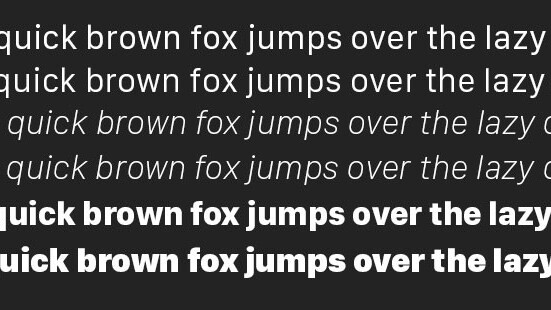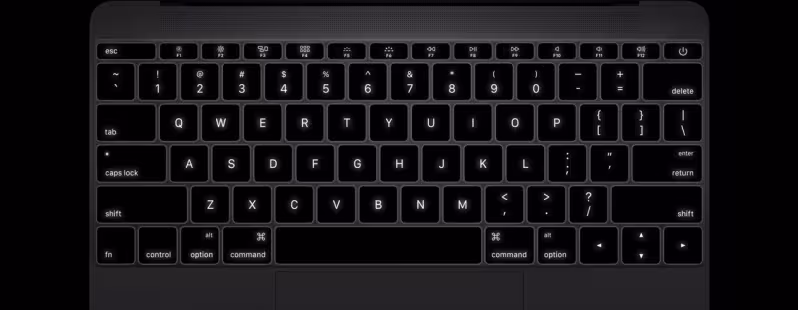
The new MacBook shows San Francisco is more than just the Apple Watch font
Apple’s been using Vag Rounded – the typeface originally deployed by Volkswagen in 1978 – on its keyboards since 1999, when it launched the original iBook.
But it looks like those days are over. The new MacBook uses San Francisco, the same font you’ll find on the Apple Watch.
The company originally said it had designed San Francisco “specifically for legibility on Apple Watch” but it looks like it’s rather more taken with its creation. Given Apple’s love of consistency, you can expect to see the font make its way onto all its other keyboards shortly.
Vag Rounded
San Francisco
Poor old Vag Rounded is now reduced to serving on the signage of a few retailers around the world and in some programming by Brazilian TV network Rede Globo. Volkswagen ditched it way back in 1992.